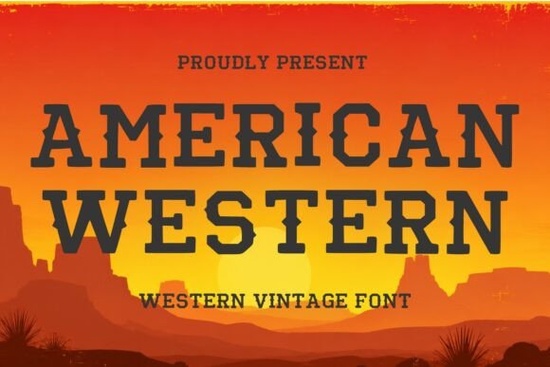
If you're designing anything that needs to scream “Wild West” without trying too hard, American Western Font is a solid choice. It’s a bold slab-serif typeface that feels authentically vintage like it was pulled straight off an old saloon sign or a wanted poster. The letterforms are strong, with sharp geometric details, but they stay readable. That balance makes it useful for projects where you want frontier character without losing clarity.
What kinds of projects benefit from this font?
Because American Western is a display font, it works best at larger sizes where its details can shine. It’s especially effective for:
- Logos and branding for ranches, cowboy outfitters, or western-themed events.
- Posters and flyers for rodeos, country music festivals, or whiskey tastings.
- Packaging for BBQ sauces, bourbon bottles, or craft jerky.
- Apparel designs – think t‑shirts, hoodies, or hats with a rustic vibe.
- Signage for rustic restaurants, farm stores, or adventure tourism.
- Book covers for western novels, historical fiction, or travel guides about the American frontier.
It also fits well in vintage merchandise and farm-to-table branding. The font carries instant nostalgia, which helps products stand out on shelves or in online listings.
How does American Western compare to similar display fonts?
If you’ve used bold display fonts before, you’ll notice American Western has more roughness in its edges almost like it was carved into wood or stamped onto leather. That texture is what gives it an authentic, handcrafted feel. Many modern display fonts are too clean; this one keeps the grit.
What other typefaces pair well with it?
Because American Western is so strong, it pairs best with simple, neutral fonts for body text. Try a clean sans‑serif like Summer Books for descriptions on a menu or label. For a more playful contrast, Daisy Pop adds a modern, slightly whimsical touch that balances the roughness of the western font. You can also layer it with a handwritten script for invitations or event materials.
Is this font suitable for digital and print use?
Yes. It works well for both. On screen, the slab‑serifs stay readable even at medium sizes, so you can use it for social media graphics or website headers. In print, the sharp edges hold up during cutting for vinyl signs or screen printing. Just avoid using it for long paragraphs its decorative nature makes small text hard to read. Save it for headlines, titles, and short phrases.
Practical tips when using American Western Font
- Use generous spacing. The bold letters can feel crowded if tracking is too tight. Give each character room to breathe.
- Pair with earthy colors. Think browns, ochres, deep reds, and faded black to keep the vintage feel intact.
- Test on different backgrounds. It looks great on distressed wood textures or leather patterns. Plain white might wash out some of its character.
- Don’t overdo effects. The font already has plenty of personality. Let it speak without too many shadows or outlines.
Next step: Sketch out a quick logo or poster mock‑up using the font with a rough paper texture. That simple combo often brings the Wild West look to life faster than you’d expect.